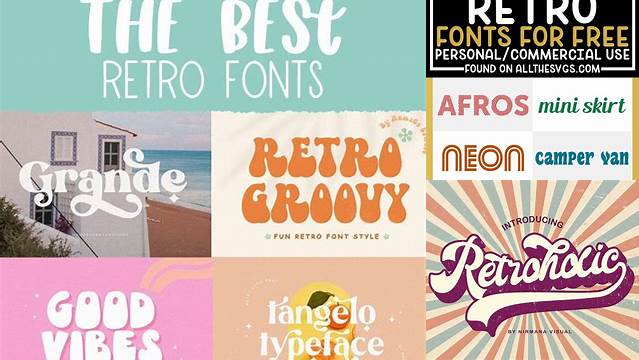
Free Retro Fonts: Commercial Use Typography
Retro fonts, guys, are totally making a comeback, and for good reason! They bring that nostalgic vibe to any project, whether it's a logo, website, or poster. But finding free retro fonts for commercial use can feel like searching for a needle in a haystack. You want something that looks awesome but also allows you to use it without worrying about licenses and legal stuff. So, let’s dive into the world of free retro fonts and explore some fantastic options you can use for your next project. We'll cover where to find them, what to look for, and how to make the most of these vintage-inspired typefaces. Trust me, by the end of this article, you'll be a retro font pro!
1. What Makes a Font 'Retro'?
So, what exactly makes a font retro? It's not just about being old; it's about evoking a specific era or style. Think of the groovy 70s, the neon 80s, or the grunge 90s. Retro fonts often feature bold, curvy lines, unique serifs, and a generally playful or funky vibe. But beyond the aesthetics, retro fonts carry a sense of nostalgia, reminding us of simpler times. When you choose a retro font, you’re not just picking a typeface; you’re choosing a feeling, a memory. The use of vintage-inspired typography can instantly add character and personality to your designs, making them stand out in a sea of modern, minimalist fonts. Understanding the nuances of different retro styles can help you select the perfect font to match your project's theme and message. For instance, a script font with flowing lines might be perfect for a wedding invitation, while a bold, geometric font would be ideal for a retro-themed poster or logo. Exploring the historical context of different retro font styles allows you to appreciate their unique qualities and apply them effectively in your work.
2. Why Use Retro Fonts in Your Designs?
Why should you even bother using retro fonts in your designs? Well, for starters, they add a unique flair that modern fonts often lack. They can instantly transport your audience back in time, creating a sense of nostalgia and connection. Imagine a sleek, modern website with a retro logo – the contrast can be incredibly striking and memorable. Retro fonts also offer versatility. They can be used in a variety of projects, from branding and advertising to web design and print materials. Plus, using a retro font can help your design stand out from the crowd. In a world dominated by clean, minimalist typography, a bold, vintage-inspired font can be a breath of fresh air. Beyond aesthetics, using retro fonts can also communicate a specific message. A 1950s-style script font might evoke feelings of classic elegance, while an 80s-inspired neon font could signal fun and excitement. The choice of font can significantly impact the perception of your brand or message. Experimenting with different retro styles can help you discover the perfect font to convey your intended mood and personality. Ultimately, the decision to use a retro font comes down to your creative vision and the message you want to communicate. Retro fonts are a powerful tool for adding character, nostalgia, and a unique visual identity to your designs.